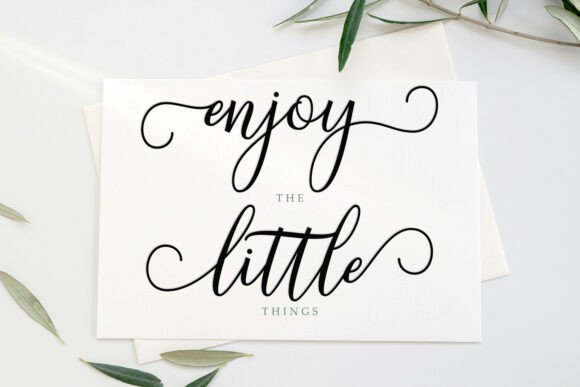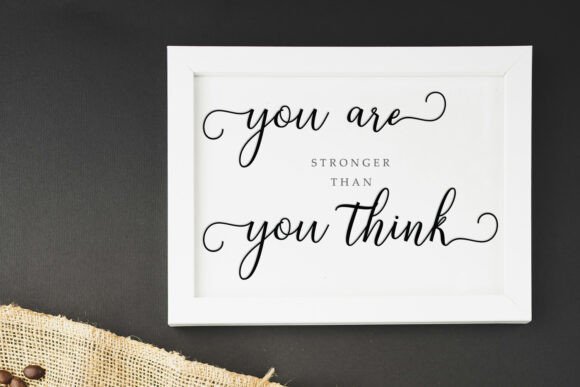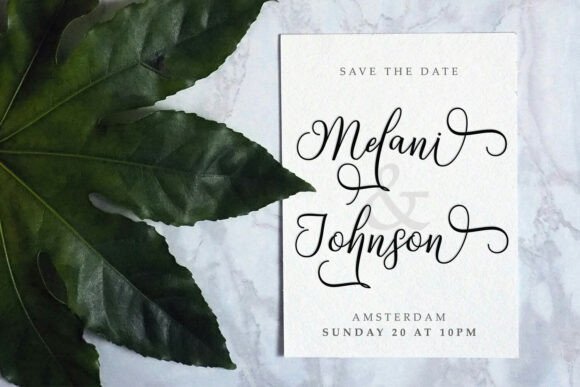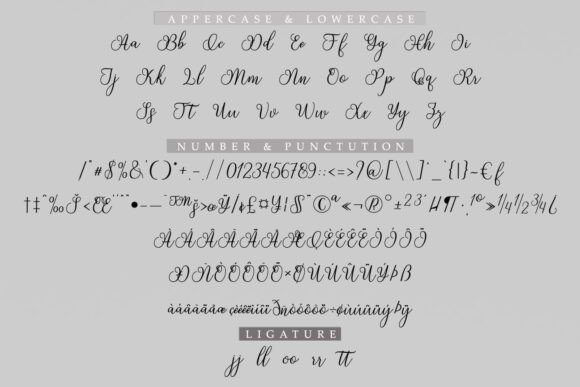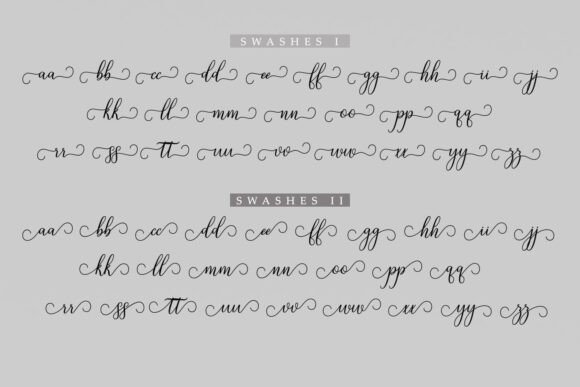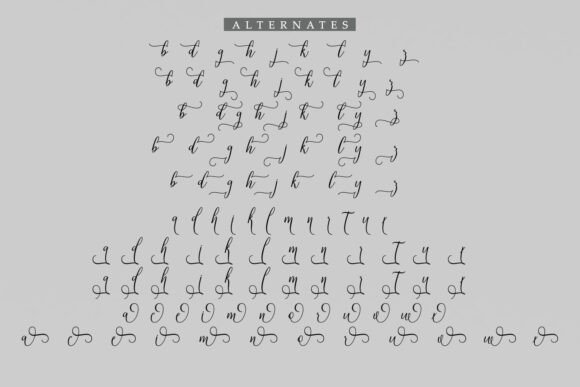
The Art of Elegant Design: Unveiling the Delhi Font
Do you remember the moment when you stumbled upon a beautifully crafted wedding invitation or a certificate that left you in awe of the elegant script? For designers, this moment is a reminder of the power of typography in setting the tone for a project. A well-chosen font can elevate a design from ordinary to extraordinary, and that’s where the Delhi Font comes in.
| 👤 Author | gianstudio12 |
Delhi Font is a calligraphy-inspired font designed to mimic the look of traditional Indian calligraphy. Its flowing strokes and elegant curves make it perfect for formal invitations, wedding stationery, and certificates. With the Delhi Font, designers can add a touch of sophistication and classic elegance to their designs, making it a valuable tool in their creative arsenal.
Delhi Font Key Features
- Font Family: Delhi is a typeface designed by Indian typographer, Sujaya Rao, as part of the Google Fonts initiative.
- Character Set: Supports a wide range of languages, including Hindi, Marathi, Gujarati, and many others.
- Unique Characteristics: Delhi Font features a unique blend of traditional Indian typography and modern design elements, making it a distinctive choice for creative projects.
Designer Review: Delhi Font
Overall, I think the Delhi Font has some great qualities, but it also has some limitations that prevent it from being a top-tier font. ✨ One thing that stands out is its unique blend of modern and traditional elements, making it perfect for projects that require a mix of contemporary and cultural flair.
Here are some specific strengths and weaknesses:
- ✨ Unique aesthetic: The Delhi Font’s blend of modern and traditional elements makes it stand out from more generic fonts.
- ✨ Versatility: The font can be used for a wide range of projects, from brochures to websites.
- ⚠️ Limited font sizes: The font can become pixelated at very large or very small sizes, making it difficult to use in certain contexts.
- ⚠️ Limited language support: The font only includes a limited set of languages, making it less suitable for international projects.
- ⚠️ No italic or bold versions: While the font includes regular and bold versions, it does not include italic or bold italic versions, which can be limiting for certain projects.
Overall, I think the Delhi Font is a solid choice for projects that require a unique and culturally relevant aesthetic. However, its limitations may make it less suitable for more complex or high-stakes projects.
Getting the Most Out of Delhi Font
Delhi Font is a versatile font that can be used in a variety of design contexts. Here are some tips for getting the most out of it:
- Use Delhi Font for titles and headings to add a touch of elegance and sophistication.
- Pair Delhi Font with other fonts to create a unique and eye-catching typography combination.